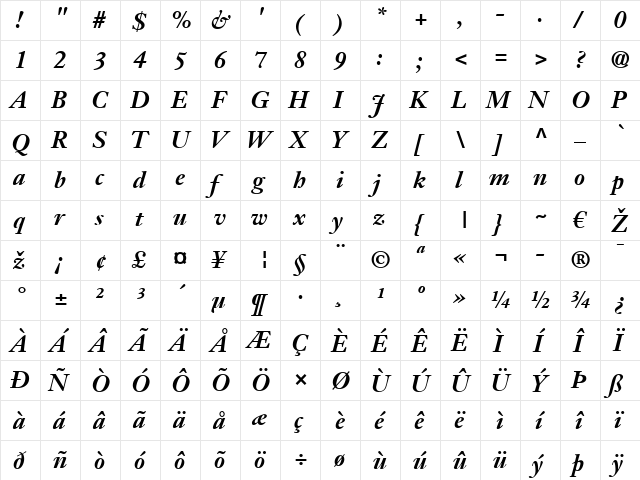
JansonText LT BoldItalic Regular
Design Context for JansonText LT BoldItalic Typeface
JansonText LT BoldItalic is a composed and adaptable typeface that performs quietly and consistently across a wide range of design contexts. The dynamic lean of this cut emphasises speed and emphasis in any layout. Its bold stroke weight gives it real presence on the page.
Pro Tip: Use JansonText LT BoldItalic for emphasis, pull quotes, and subheadings where its slanted energy can add rhythm to the layout.